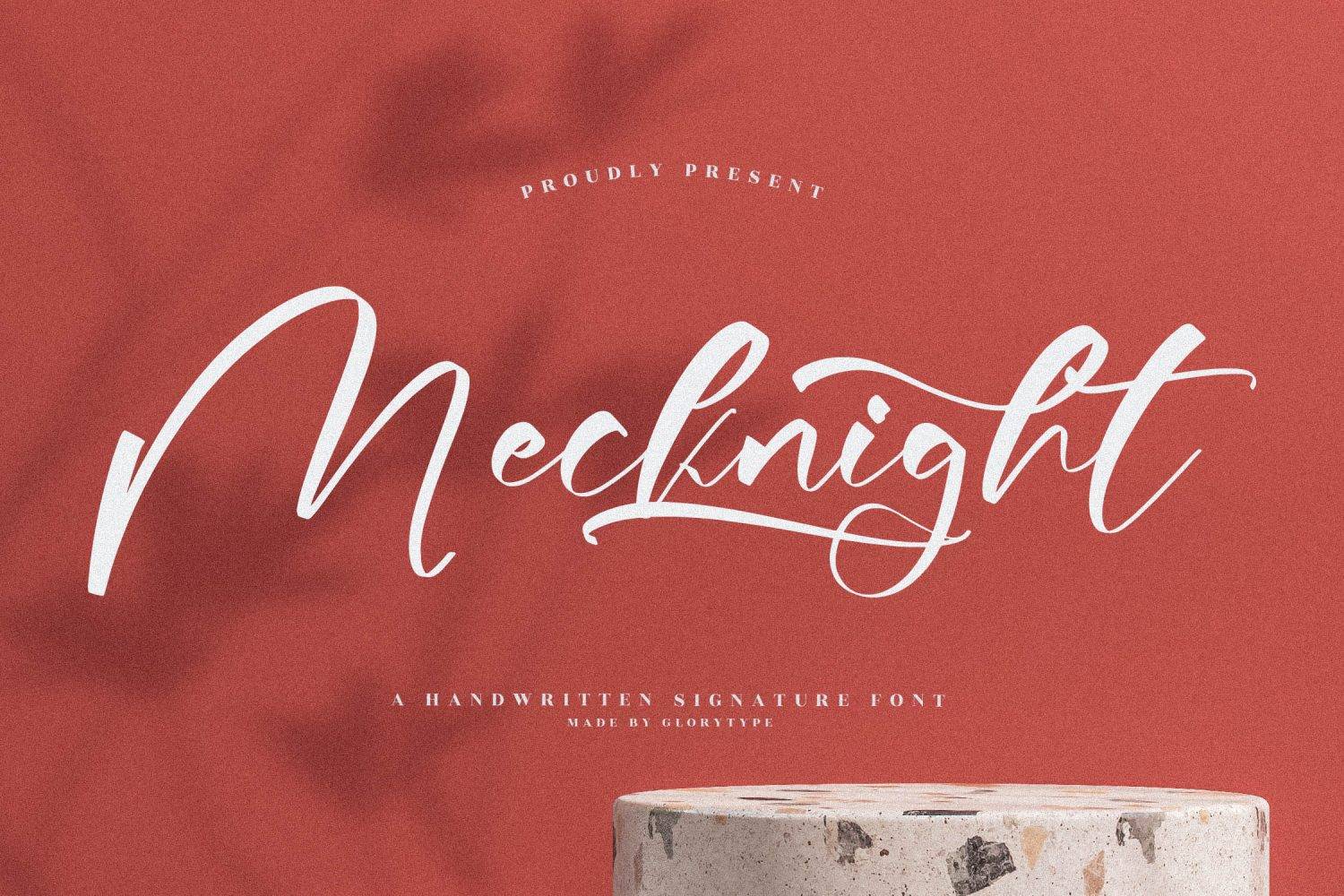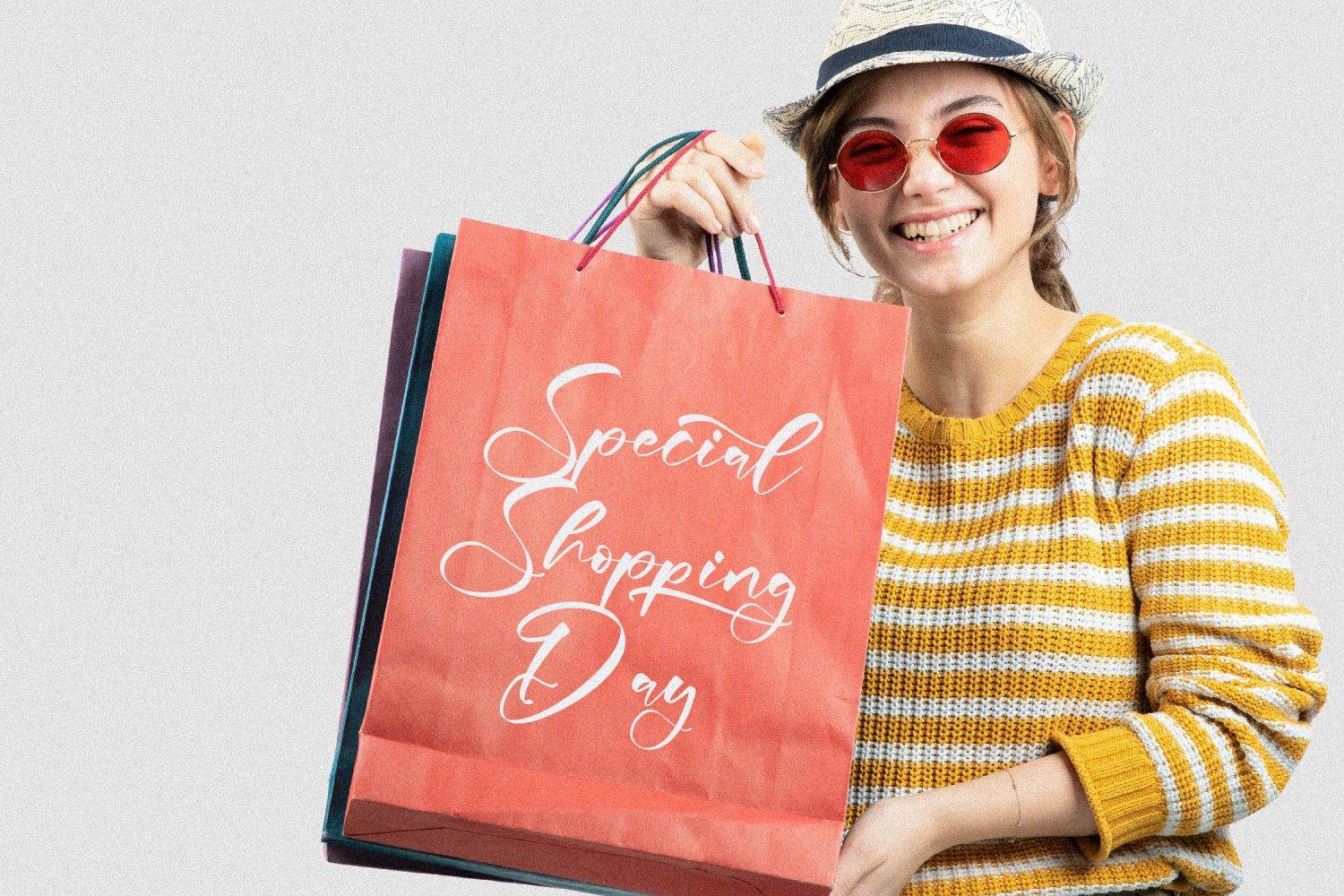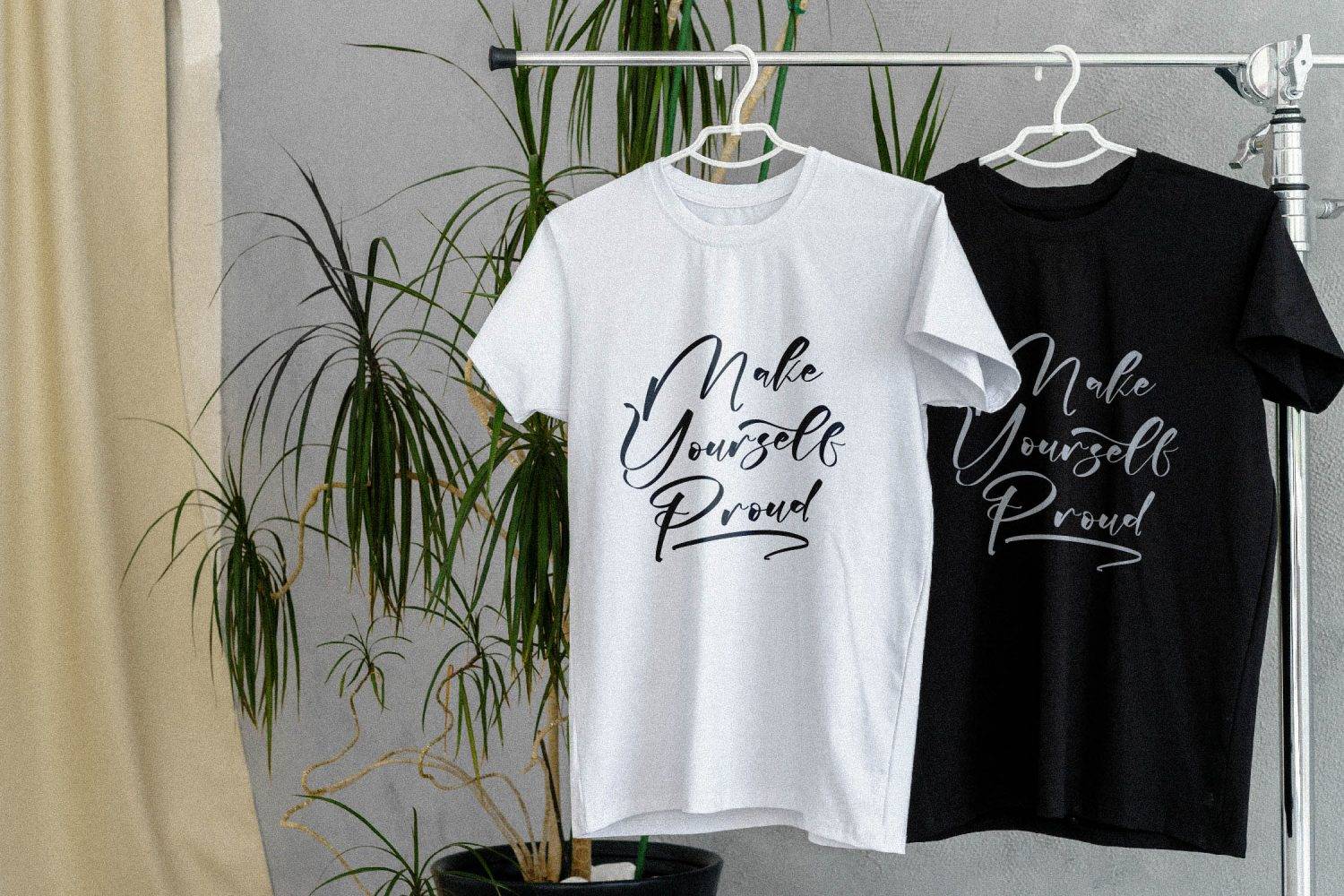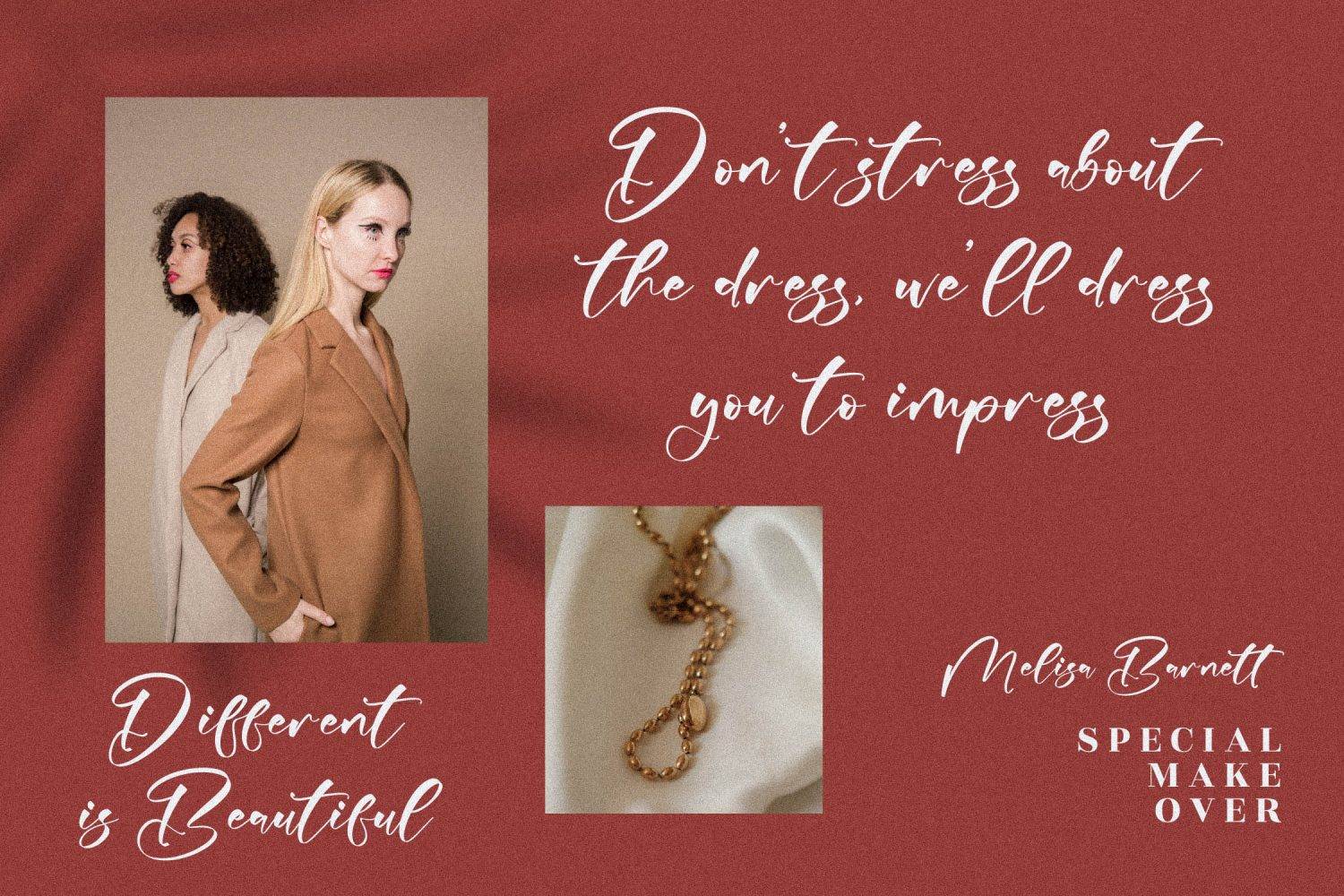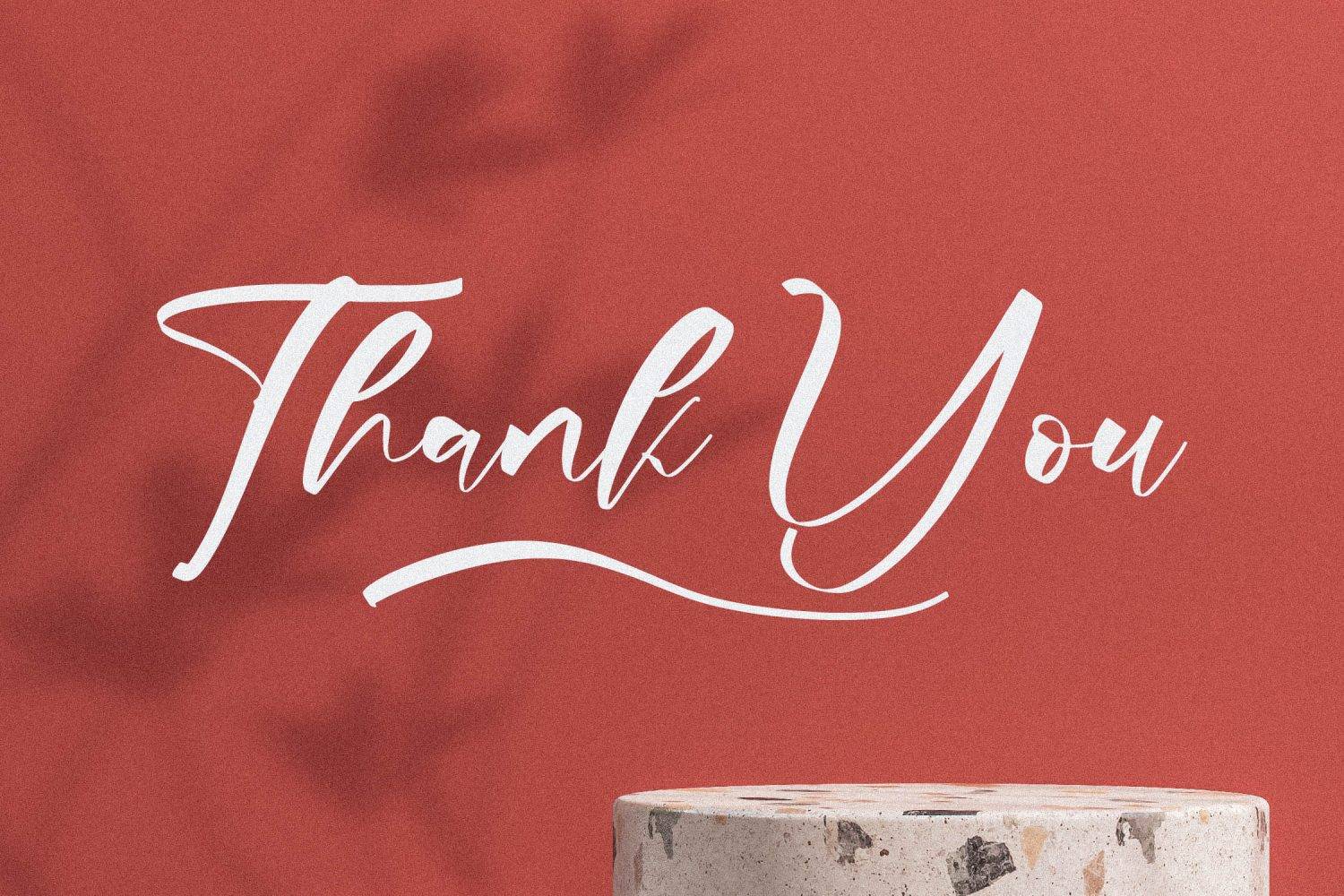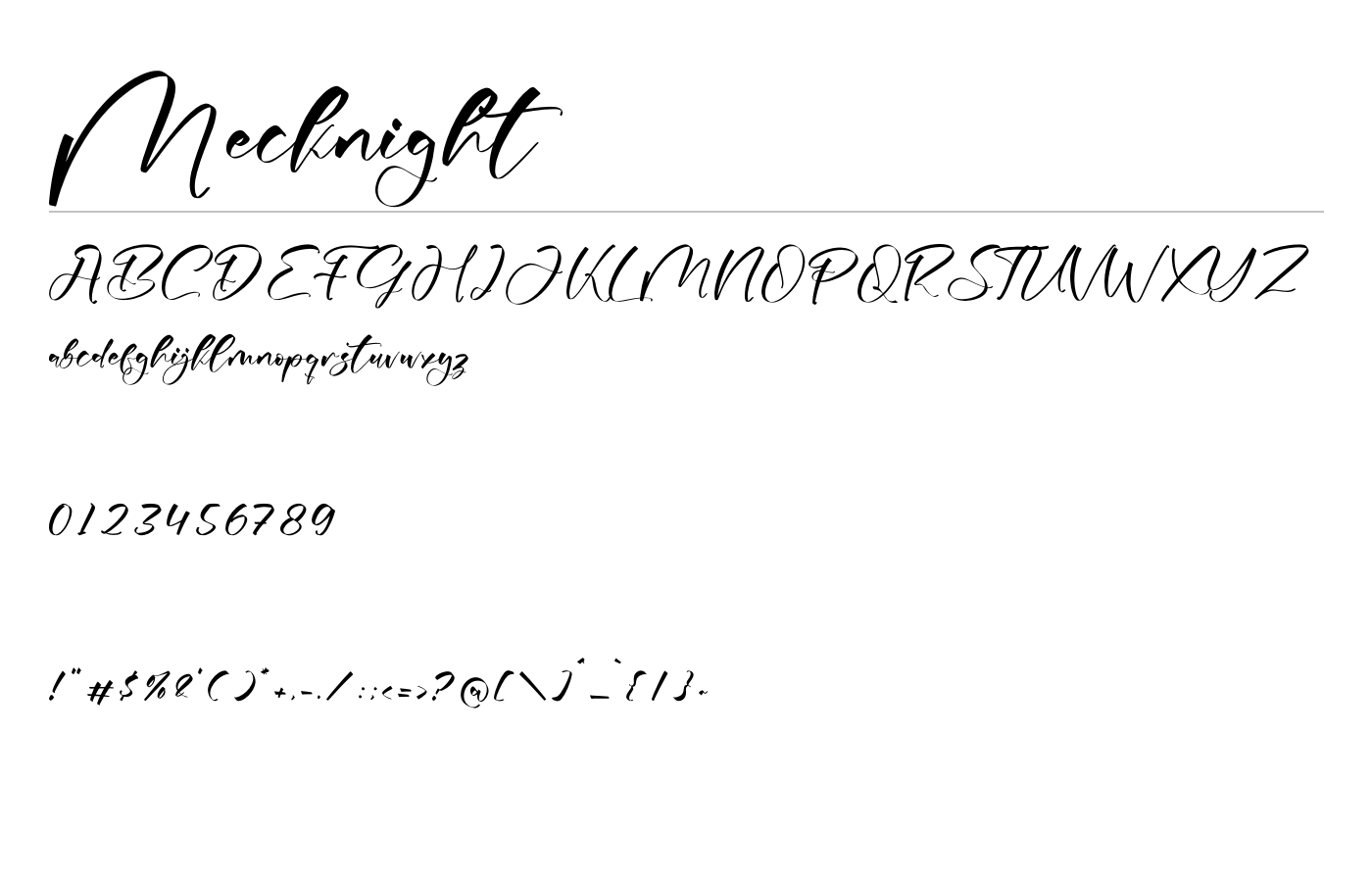
Mecknight is an elegant, modern script font that features flowing, calligraphic strokes with a stylish and sophisticated feel. Its varying line thickness and delicate curves make it ideal for luxurious branding, wedding invitations, and creative headlines where a graceful, personal touch is desired. This font brings a refined, artistic flair that works beautifully for projects aiming to convey elegance and creativity.
Mecknight Font
About Mecknight Font